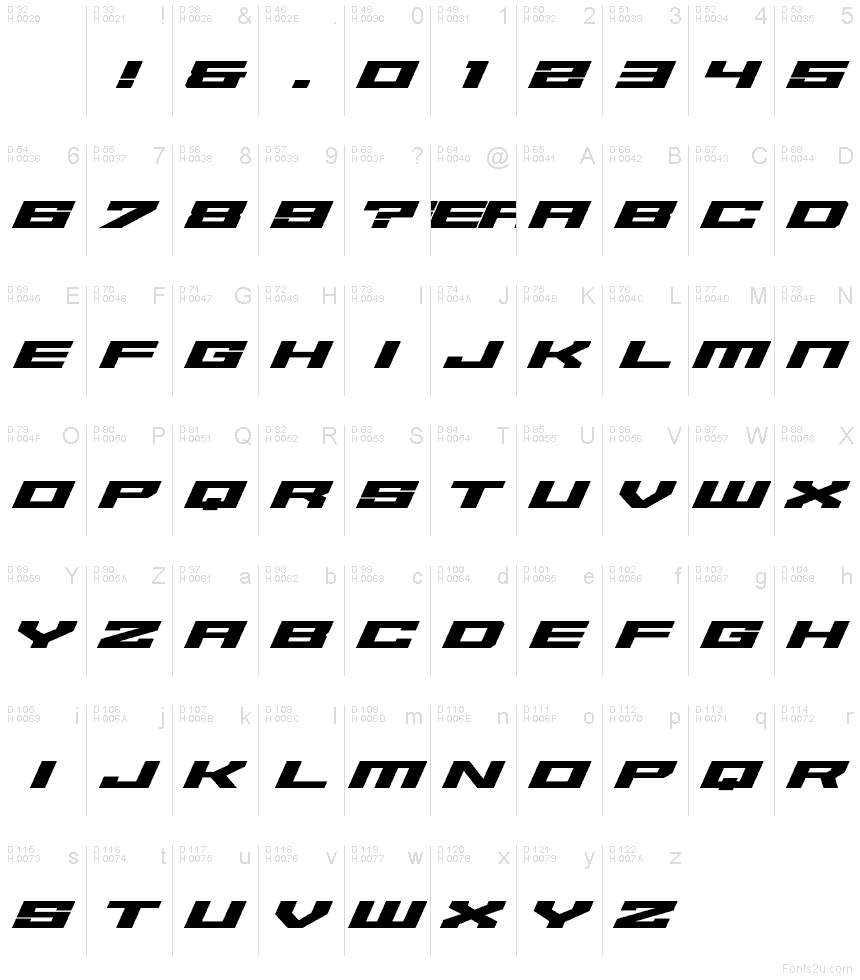
Gear-Clean
Gear Clean font by Youssef Habchi is a free techno racing display font from the Gear6 family that looks built for speed. Its hard forward slant, carved wedge cuts, and striped crossbars read like motion blur baked into the letters, giving headlines that rubber-on-asphalt urgency. Sturdy strokes keep it crisp at scale, while the rhythm of the gaps adds just enough grit to feel mechanical, not messy.
Using Gear Clean, you can juice up motorsport logos, esports team branding, car wraps, event posters, pit-lane signage, and bold YouTube thumbnails. This free font shines on short, punchy words and stacked numerals; track it a hair looser at smaller sizes. Pair with a clean, neutral grotesque for body copy to let the speed lines do the talking.